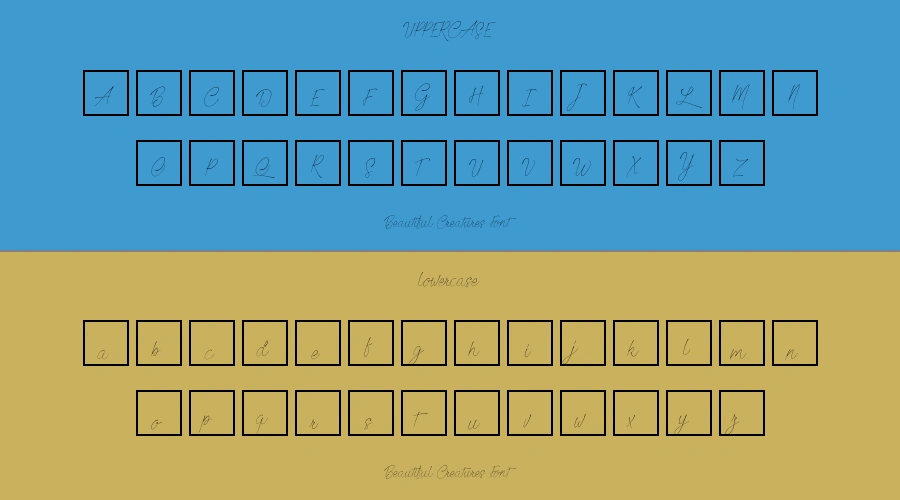
About Beautiful Creatures Font
Beautiful Creatures Font stands out for its distinctive combination of hairline details and flexibility. Ideal for technical manuals, it provides the clarity and market appeal that professional projects demand. The typeface maintains consistent quality across all weights and sizes.
Key features include refined elegant proportions and practical proportional figures, enhancing typographic expression. In campaign headers applications, Beautiful Creatures Font demonstrates exceptional archive stability. The counter aperture and design philosophy contribute to its distinctive character and professional appeal.